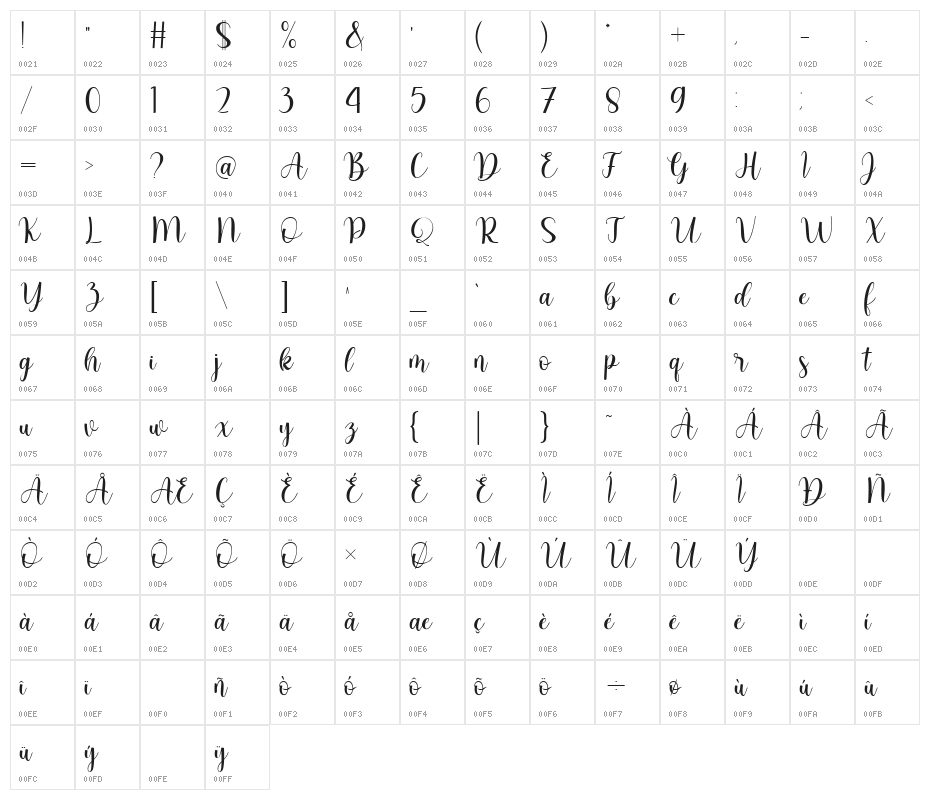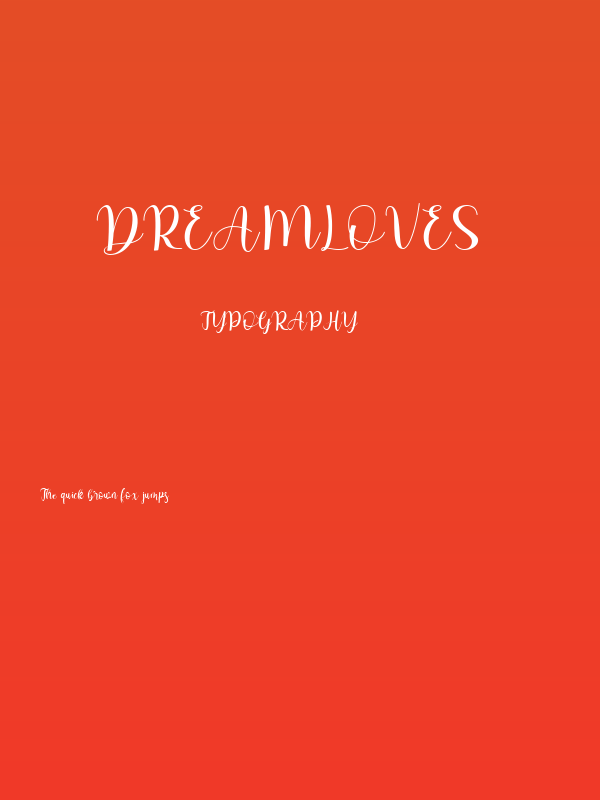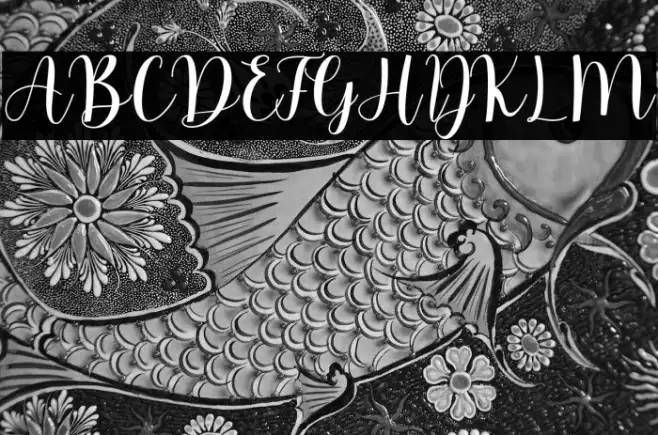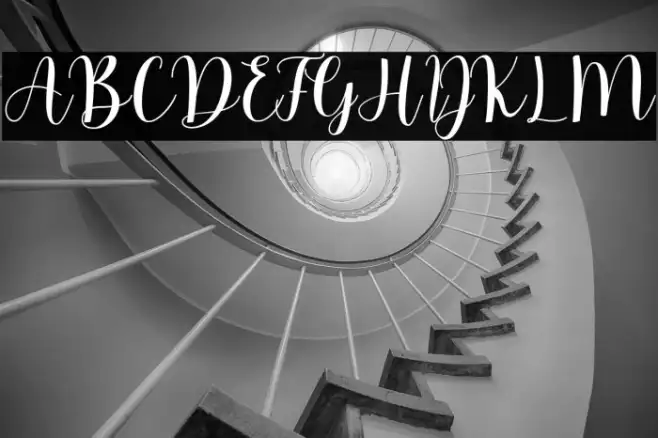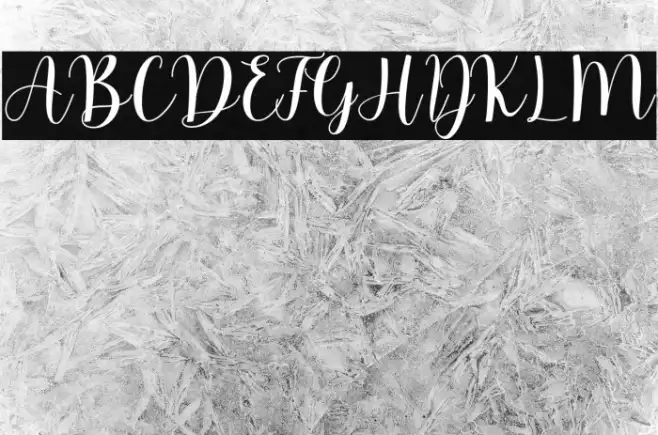
Dreamloves Font
Dreamloves Description
This font features an elegant and flowing script style, characterized by its smooth, cursive strokes and graceful curves. The uppercase letters exhibit a sophisticated flair with extended ascenders and descenders, giving them a sense of movement and fluidity. The lowercase letters maintain a consistent style, complementing the uppercase with their rounded forms and connected strokes. The numerals are designed to match the overall aesthetic, with a slight slant and uniform thickness. Special characters are thoughtfully integrated, maintaining the font's cohesive and stylish appearance. This font is ideal for projects that require a touch of elegance and sophistication.